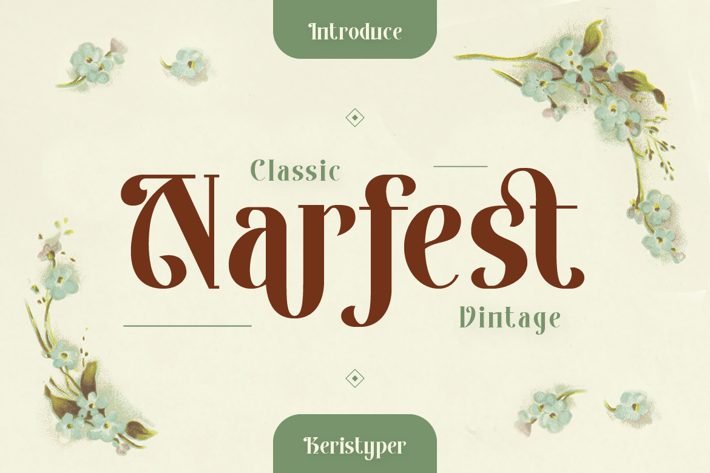
Narfest Font
Narfest is a classic vintage serif font with an art nouveau style, in feminine and unique characteristics. This font is good for logo design, Social media, Movie Titles, Books Titles, short text even long text letters, and good for your secondary text font with script, sans, or serif.
Standard Uppercase & Lowercase
Multilingual : ä ö ü Ä Ö Ü ß ¿ ¡
Alternate & Ligature